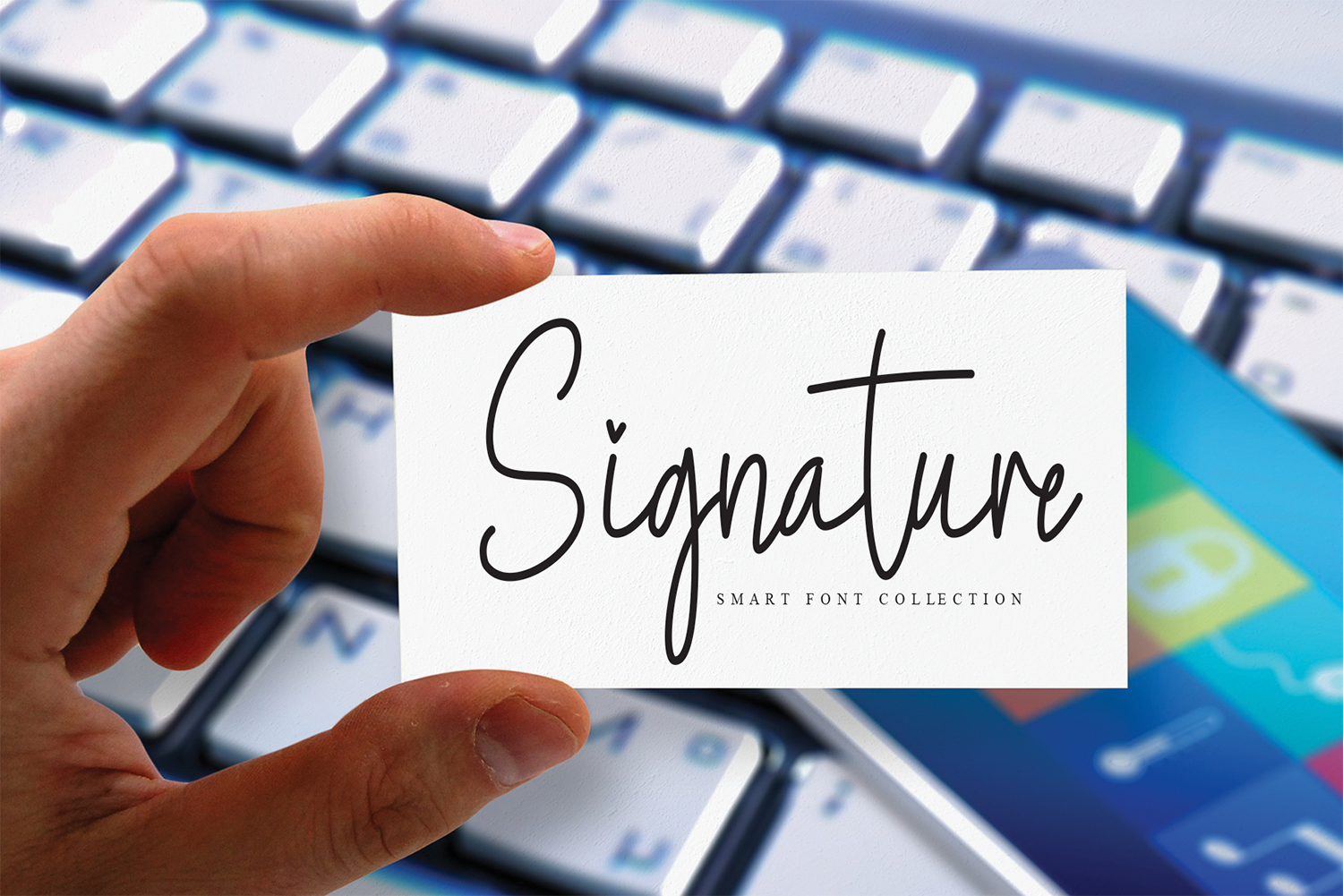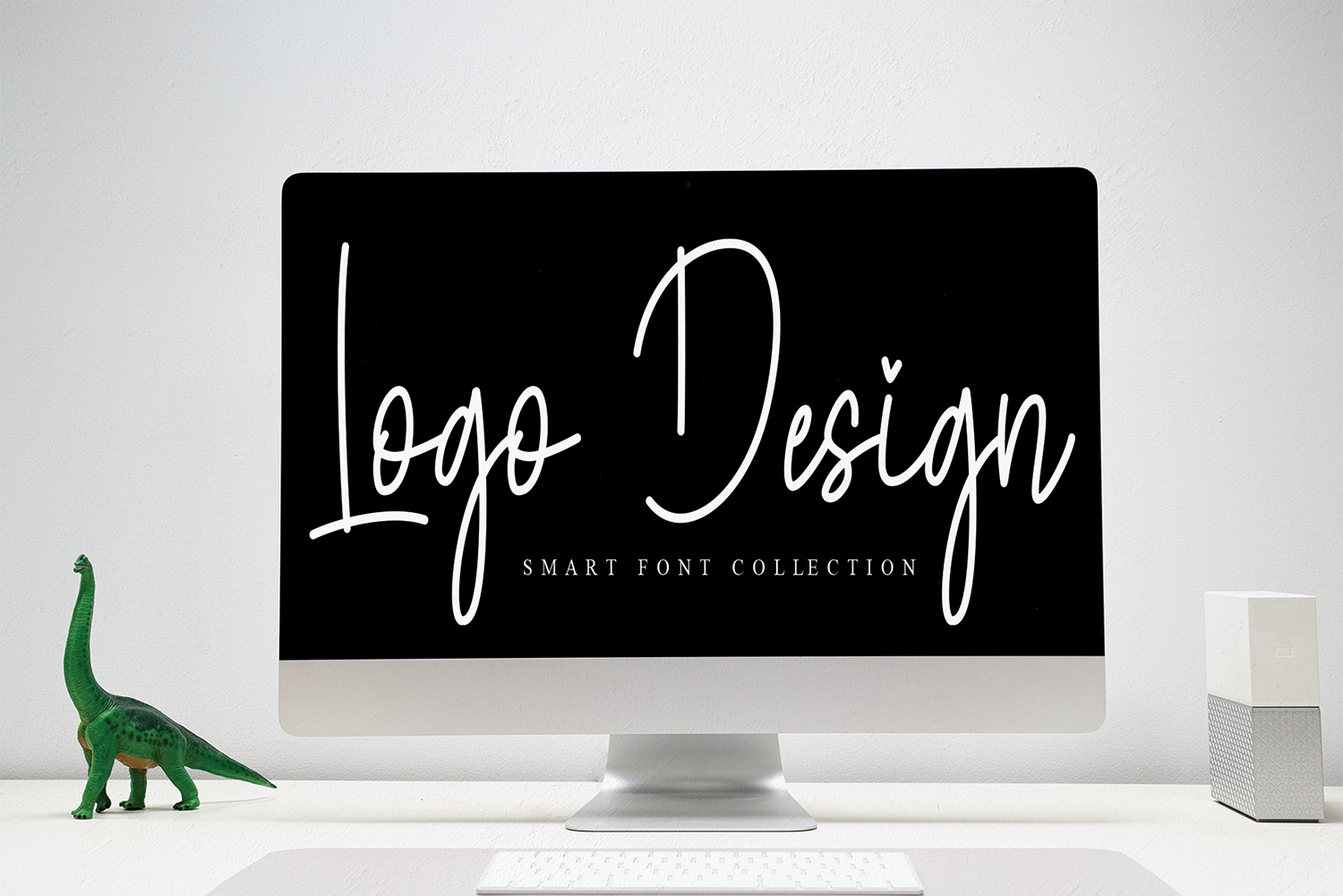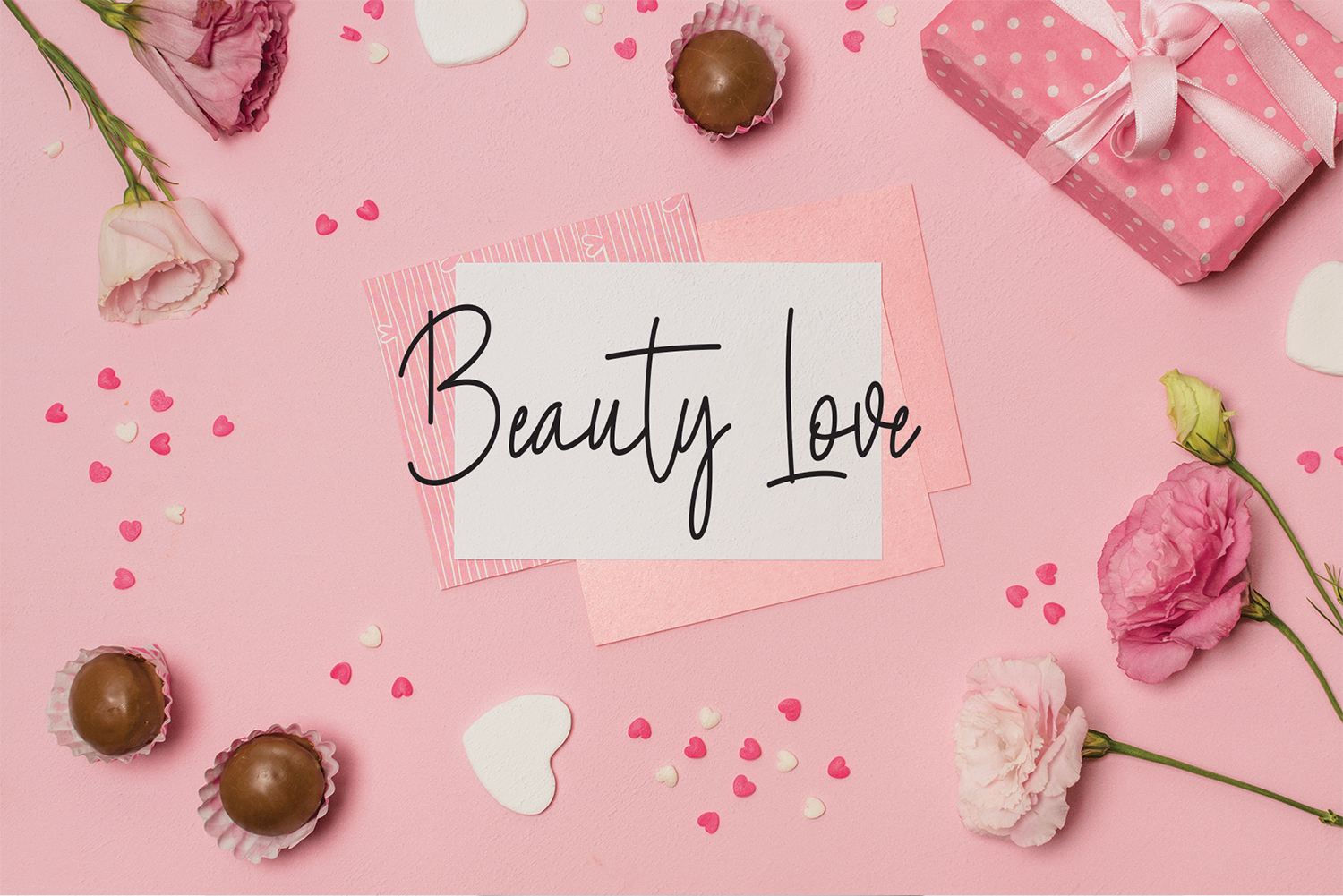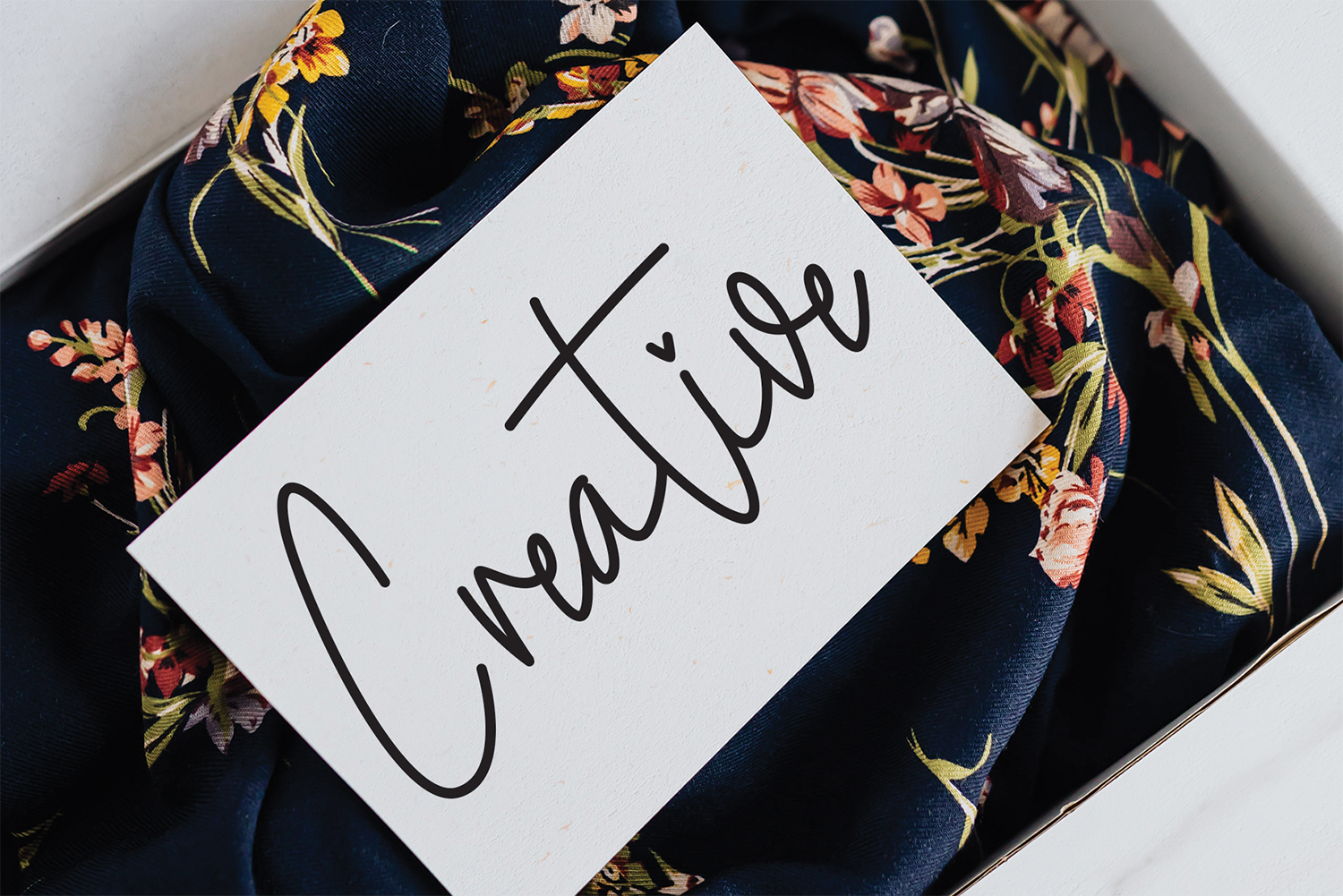
Yellowbells Free Font
Discover Yellowbells Free Font, a sophisticated and delicate handwritten font adorned with charming, graceful swashes. Its unique allure lends itself beautifully to a diverse array of creative concepts, spanning from letterheads and headings to exquisite stationery designs. This free typeface was designed by a talented Scratchones Creative. If you like it don’t forget to check out the full version.